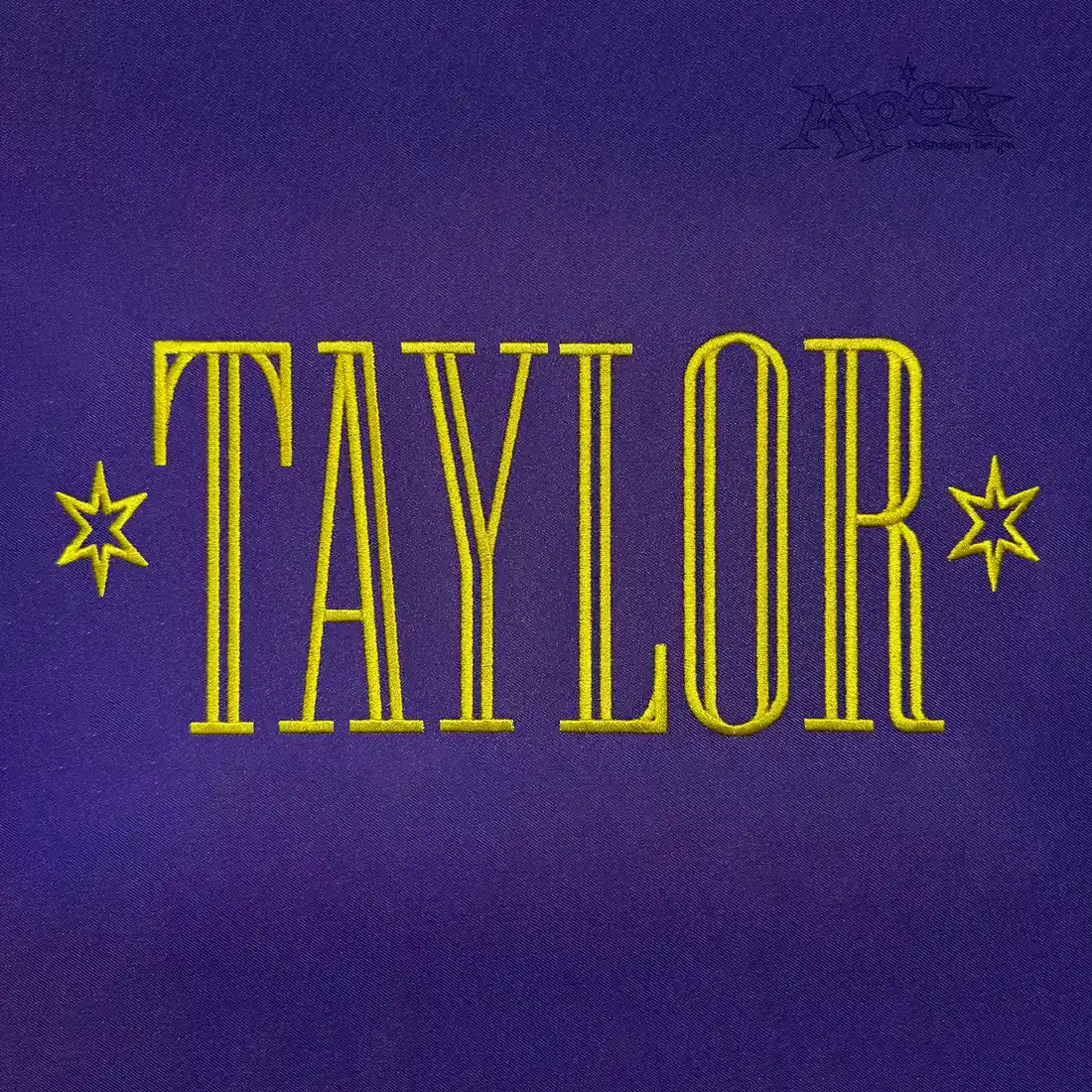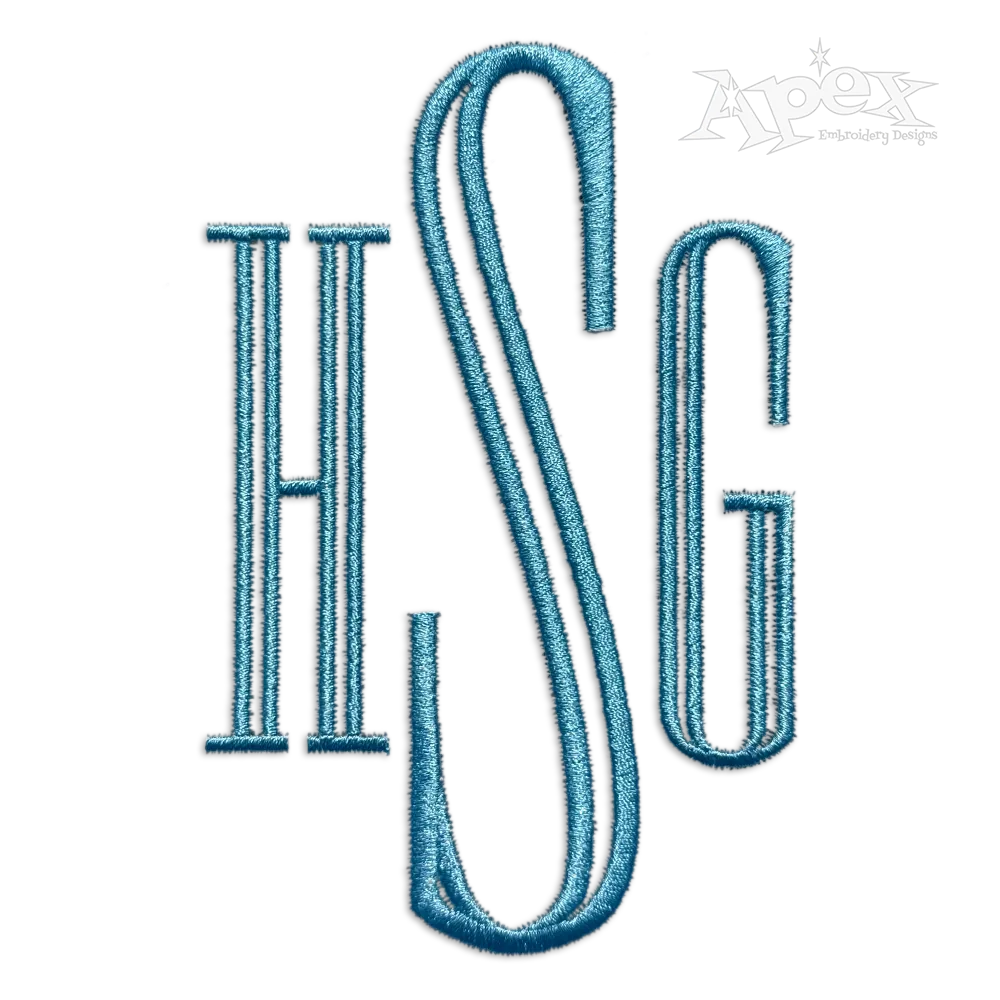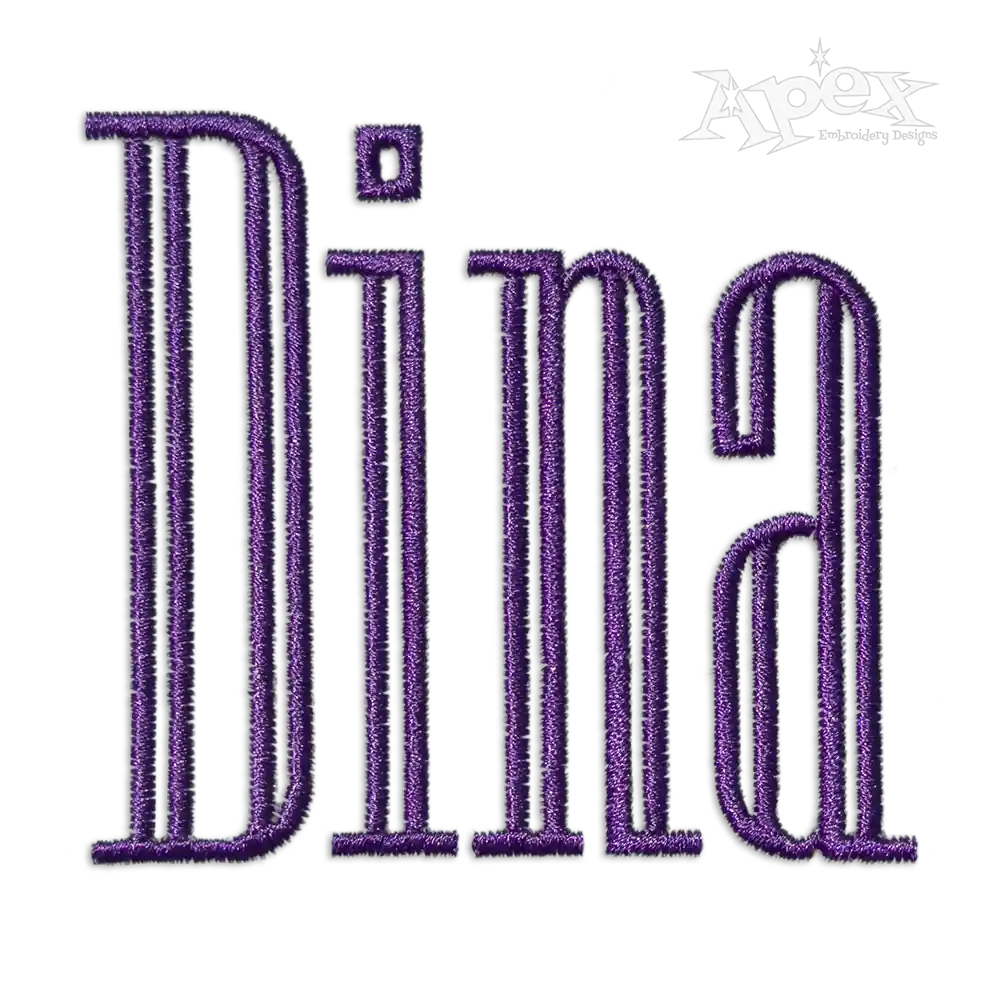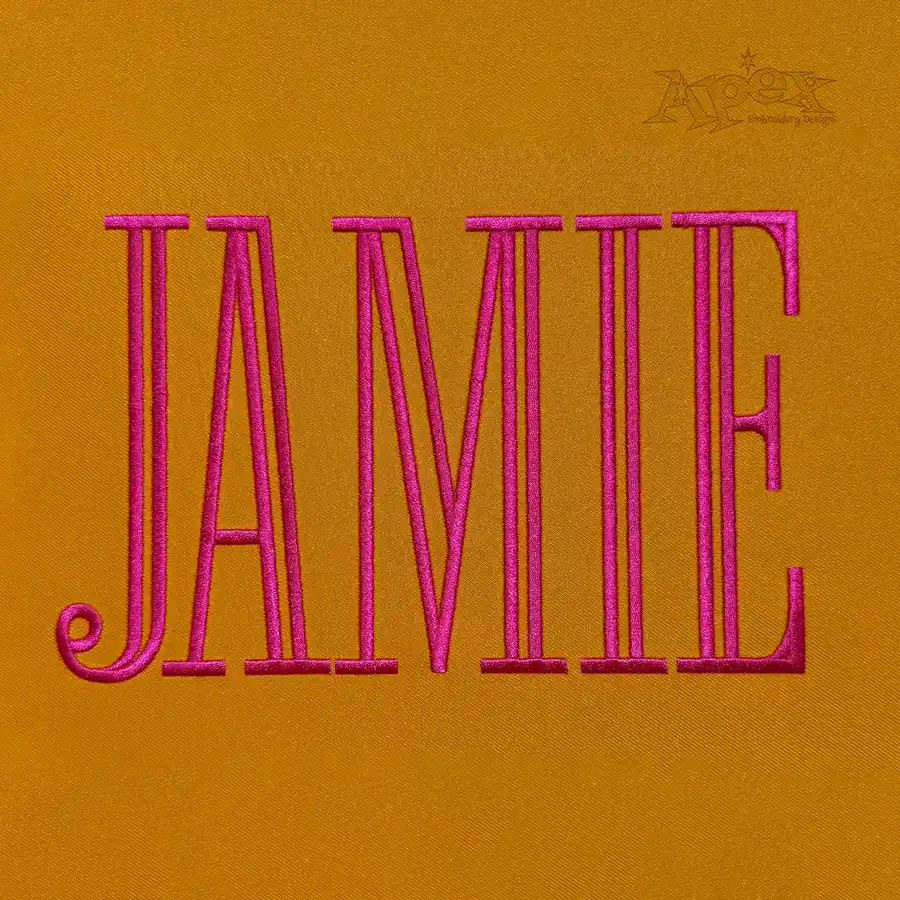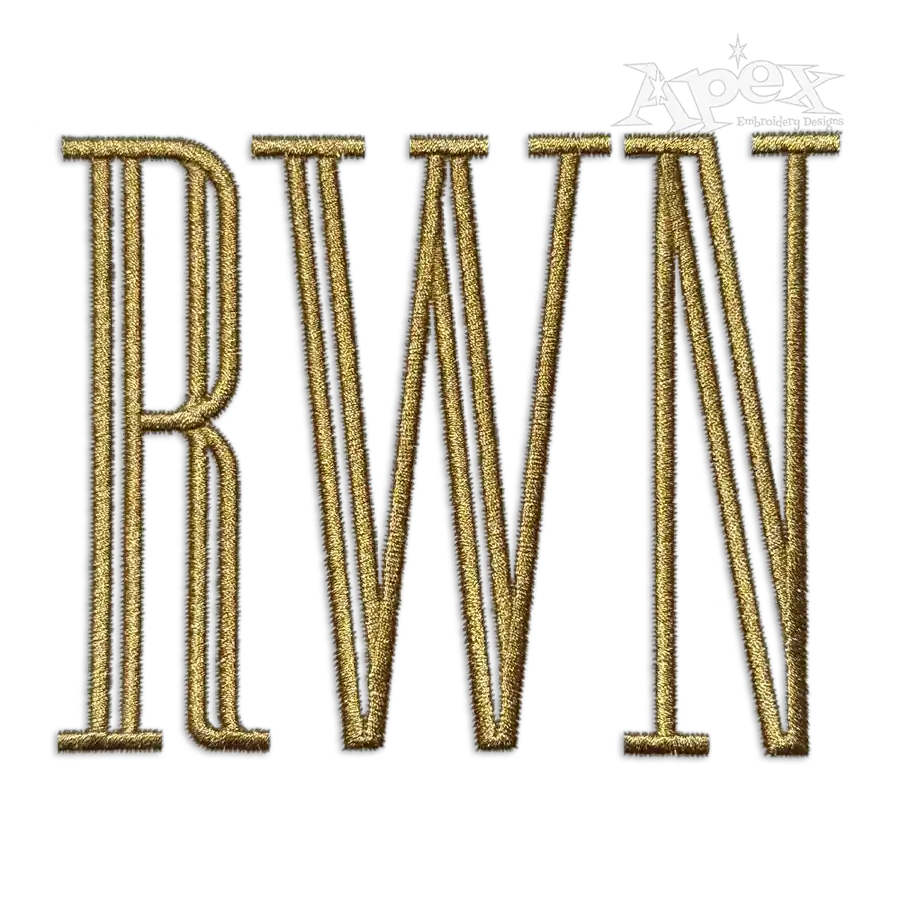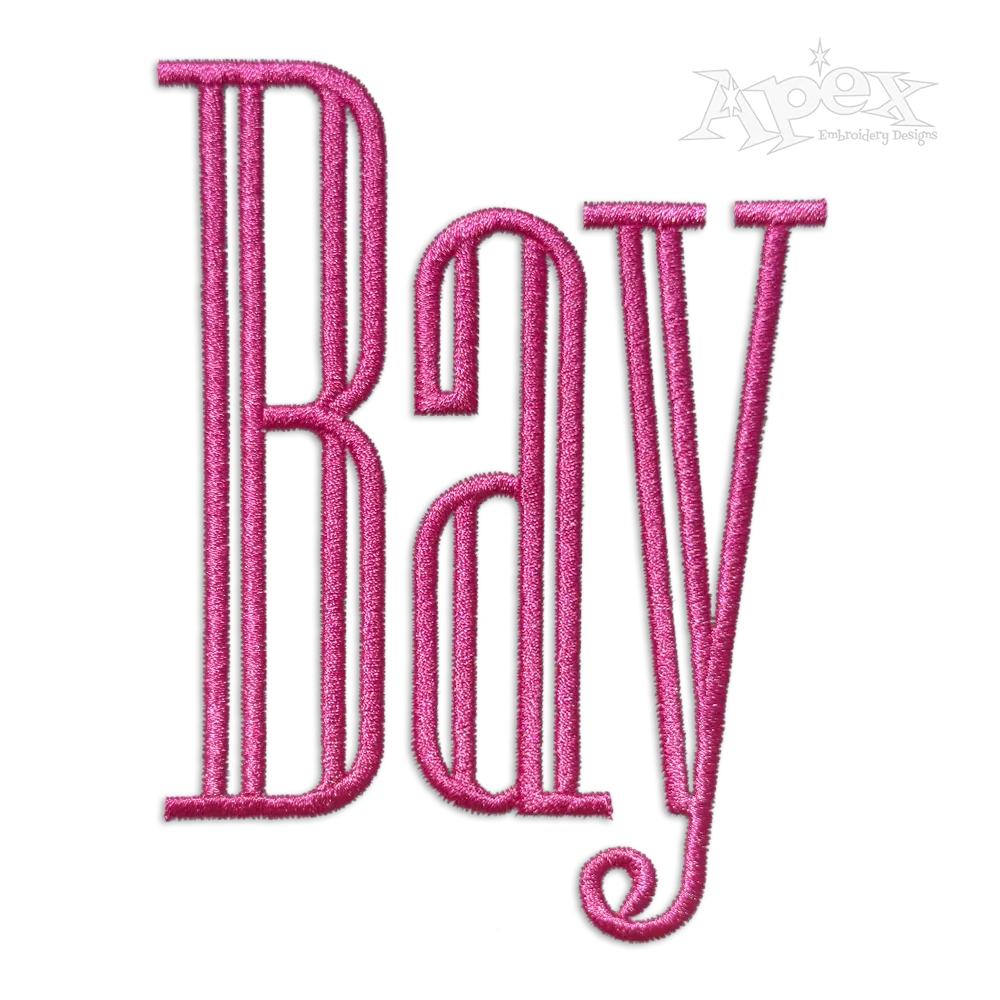
Amelia Embroidery Font
There is an enduring romance in classical typography that never fades—a poised symmetry born of historical bookplates and stately stone-carved inscriptions. When digitizing the Amelia Embroidery Font at Apex, we sought to capture that pristine, tailored rhythm and translate it into luminous threadwork. Designed with balanced proportions, delicate bracketed serifs, and crisp terminal curves, Amelia brings a quiet luxury to the hoop. Every letter glides beneath the needle with measured grace, reflecting ambient light across lustrous satin columns and effortlessly transforming everyday textiles into personalized family heirlooms.
Digitized with absolute precision, the Amelia alphabet is crafted to scale seamlessly across an array of bespoke projects. Each size has been individually adjusted for stitch density, underlay architecture, and pull compensation to ensure smooth stitching and razor-sharp serifs.
- 2-Inch Alphabet: Perfect for delicate cuffs, linen dinner napkins, and subtle shirt monograms.
- 3-Inch Alphabet: An ideal intermediate scale for cosmetic pouches, clutch bags, and children's knitwear.
- 4-Inch Alphabet: Striking on plush spa towels, canvas beach bags, and bridal dressing robes.
- 5-Inch Alphabet: A commanding focal point for decorative accent pillows, heirloom quilt blocks, and duvet covers.
Project Ideas for Amelia Embroidery Font
The timeless serif anatomy of Amelia bridges the gap between classic formality and relaxed contemporary living, making it an indispensable choice for custom monogramming and artisan stitchery:
- Luxury Table Linens: Stitch crisp single initials or formal three-letter monograms onto hemstitched linen cocktail napkins and celebratory table runners.
- Bridal Trousseau & Gifting: Personalize silk bridal party robes, velvet ring-bearer pillows, and keepsake handkerchiefs for an unforgettable wedding suite.
- Bespoke Resort Wear: Elevate lightweight linen button-downs, resort cover-ups, and knit polo shirts with subtle pocket monograms.
- Heirloom Nursery Essentials: Embroider cashmere baby blankets, christening gowns, and nursery boudoir cushions with soft, poetic lettering.
- Personalized Canvas Accessories: Render bold statement letters across heavy cotton canvas totes, travel duffels, and everyday zip pouches.
Amelia’s aristocratic silhouette draws the eye effortlessly, providing versatile layout opportunities across woven and structured materials:
- Diagonal Corner: Positioned 1.5 to 2 inches inward along the mitered corner of table napkins and guest towels for an undeniably classic tabletop aesthetic.
- Left Chest & Pocket: Centered squarely over the chest pocket line on tailored garments, providing an authoritative, heritage finish.
- Center Sham & Throw Pillows: Scaled up to 4 or 5 inches and aligned dead-center on decorative pillows to anchor a master bedroom suite.
- Cuffs & Hemlines: Subtle 2-inch lettering angled parallel along a French cuff or robe hemline adds an intimate, whispered touch of personalization.
Amelia Craft & Letterform Details
The true genius of the Amelia Embroidery Font lies in the micro-architecture of its stitches. Rather than simply tracing a typeface, our master digitizers sculpted each stroke to honor the natural tension and sheen of embroidery thread. The letterforms display a captivating contrast between bold vertical stems and whisper-light hairlines, engineered with specialized auto-split underlay to prevent fabric puckering while ensuring full, opaque coverage.
Notice the deliberate contouring of Amelia’s serifs: gently flared brackets sweep into solid footings that anchor each character with stability. Every curve and turnaround is path-optimized to limit abrupt trims and jarring jump stitches, delivering a fluid, ribbon-like satin stitch flow. As your machine stitches, the thread lays flat and dense, forming velvety, raised letterforms that capture light from every angle and withstand years of treasured laundering.